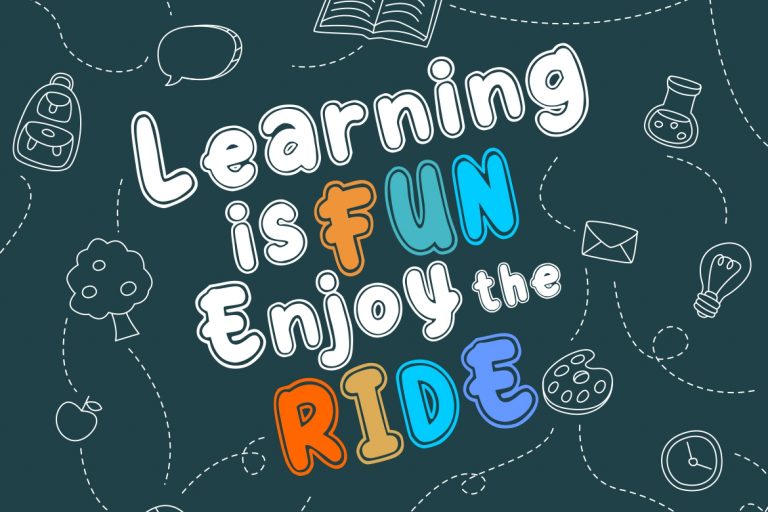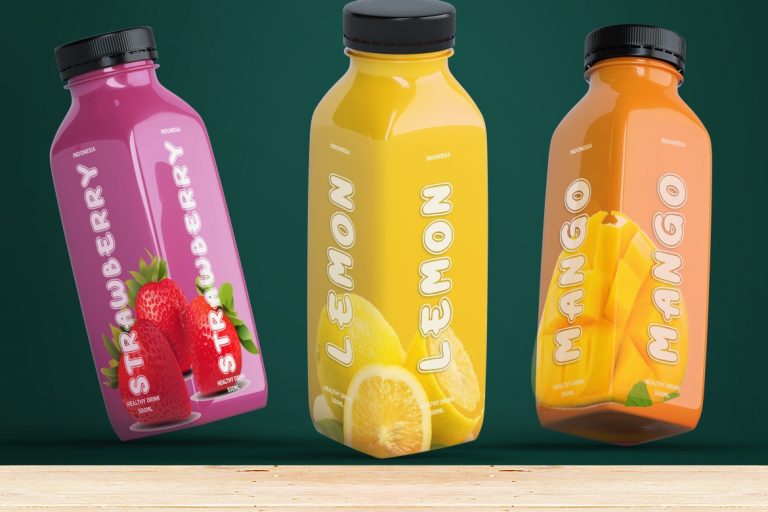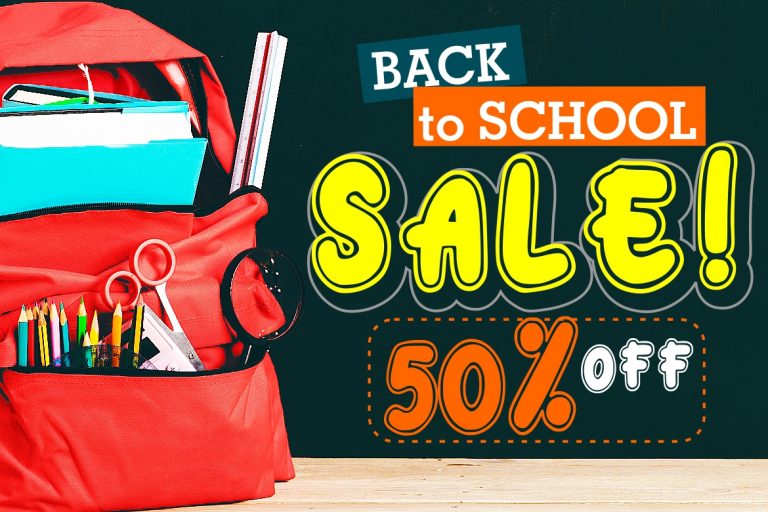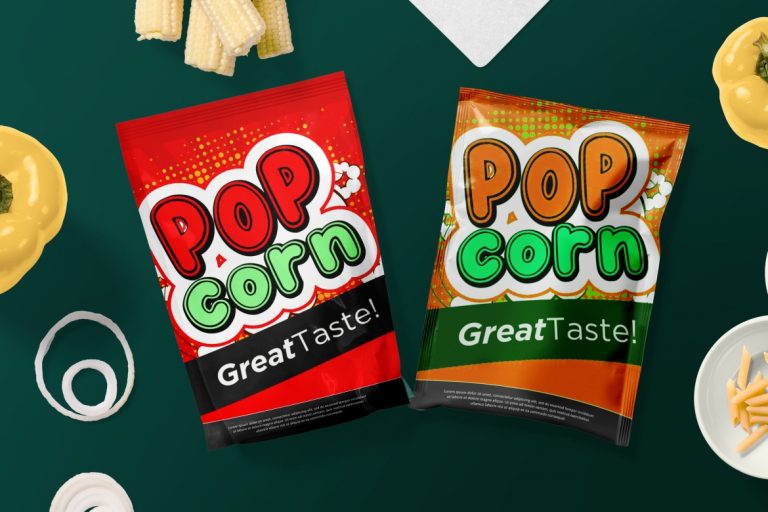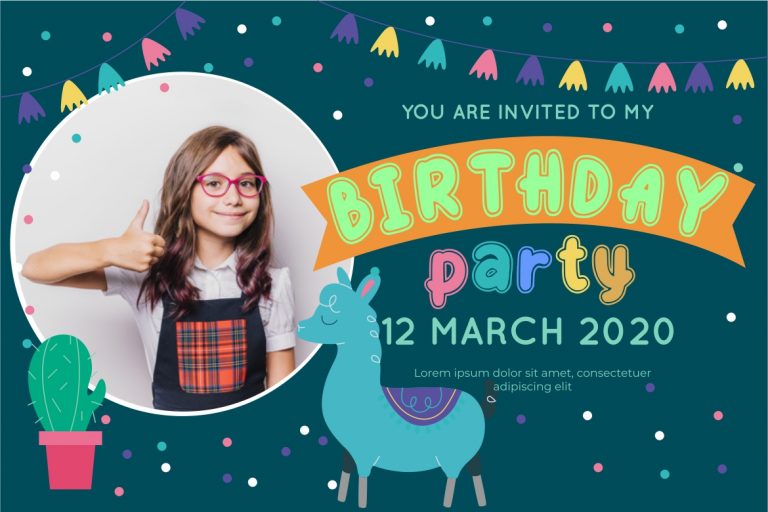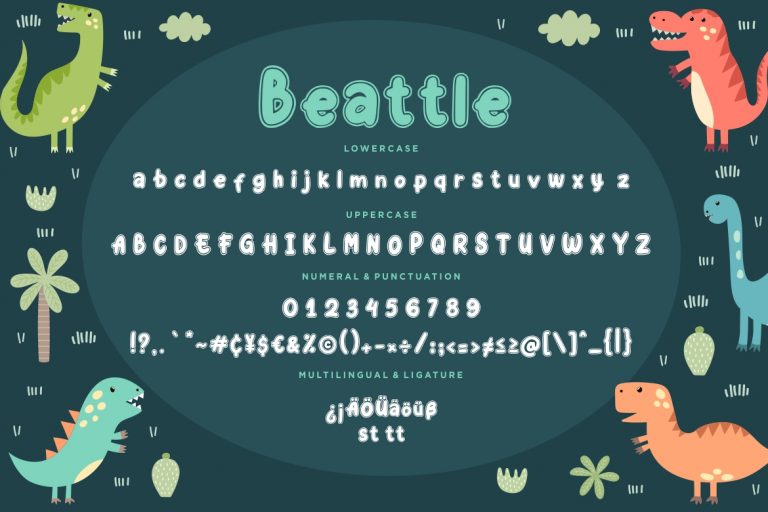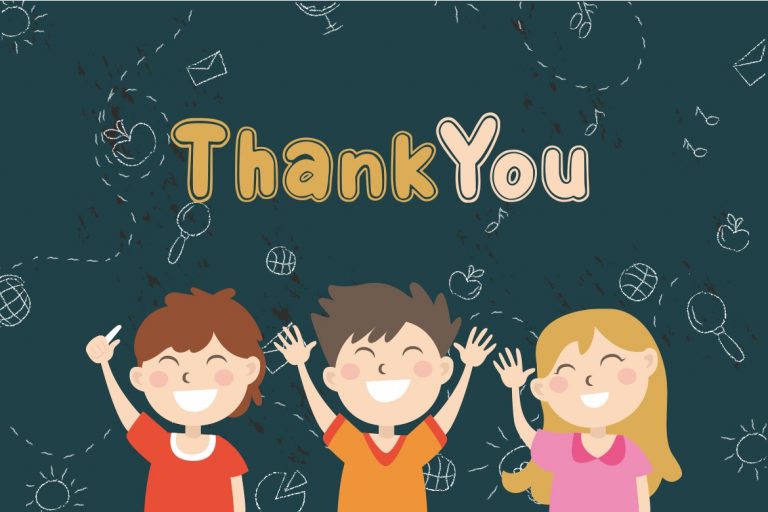
Beattle Fun Children Typeface
Beattle is fun monoline bold font which suitable to use for children related occasion.
Beattle is perfect for branding projects, logo, wedding designs, social media posts, advertisements, product packaging, product designs, label, photography, watermark, invitation, stationery and any projects that need handwriting taste.
- Standard glyphs
- Ligature
- Fonts include multilingual support for; ä ö ü Ä Ö Ü ß ¿ ¡